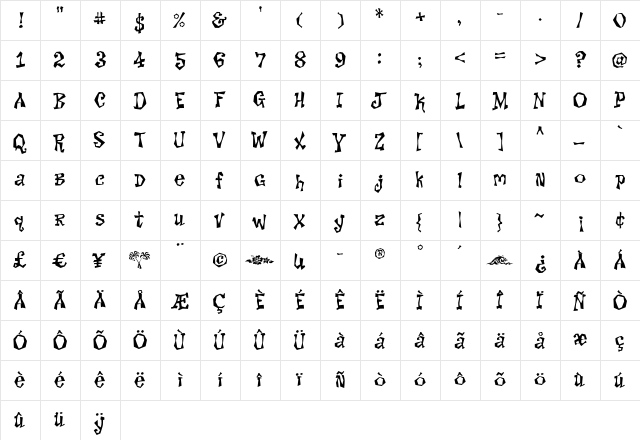
WhyKeeKee Medium
Design Context for WhyKeeKee Typeface
WhyKeeKee is a composed and adaptable typeface that performs quietly and consistently across a wide range of design contexts.
Pro Tip: Use WhyKeeKee in both headline and body roles to test its range before committing to a single application.